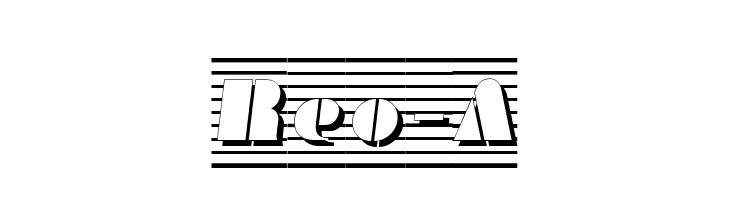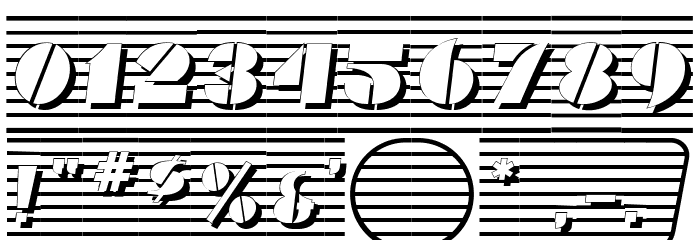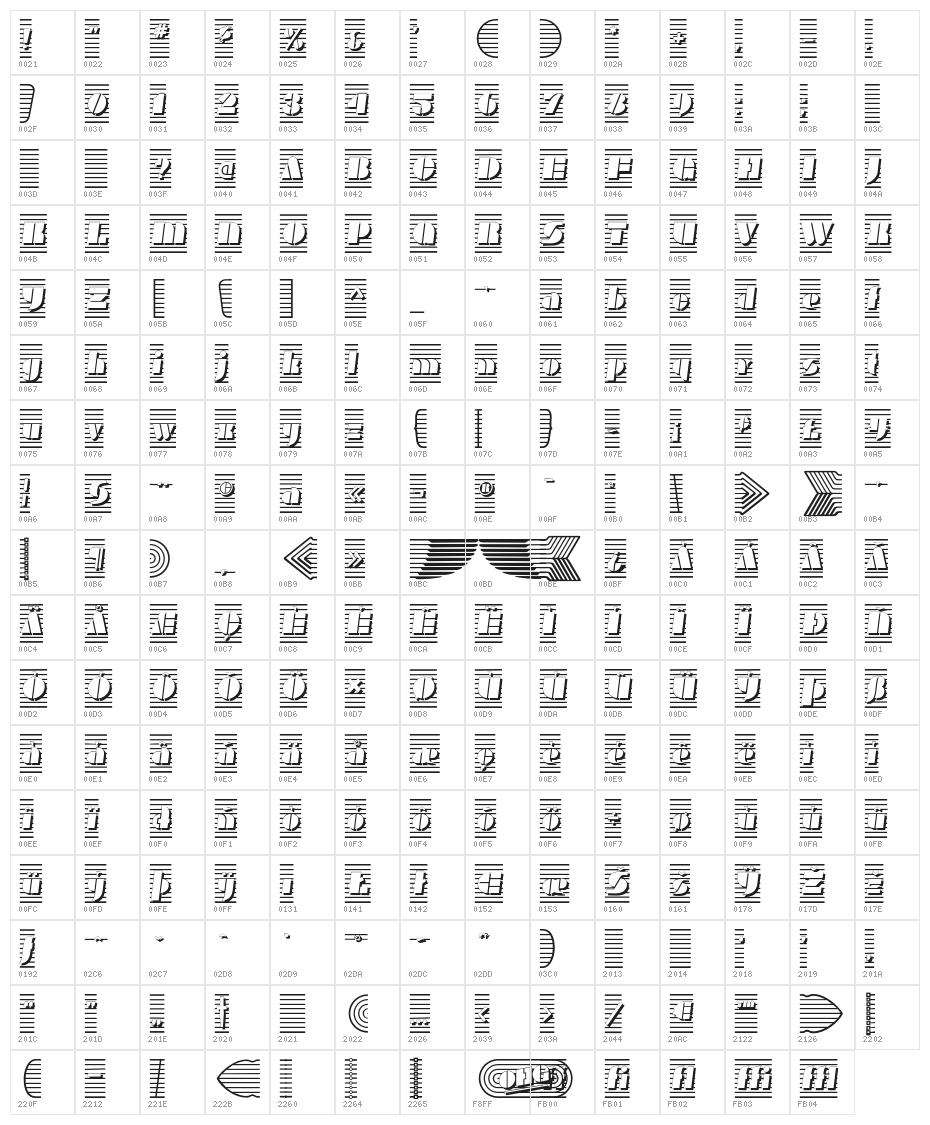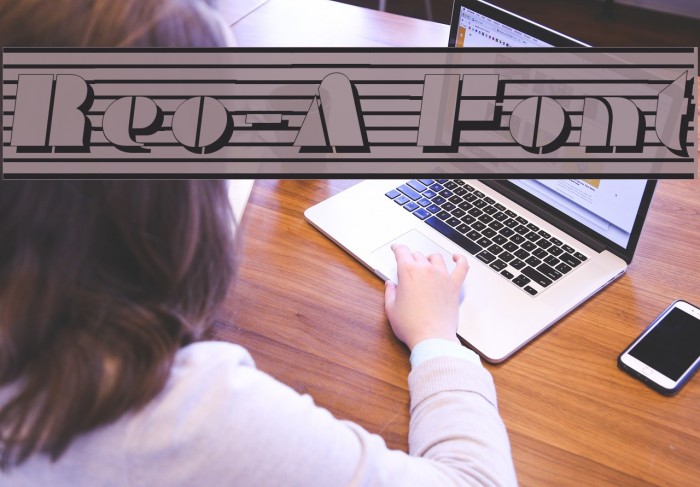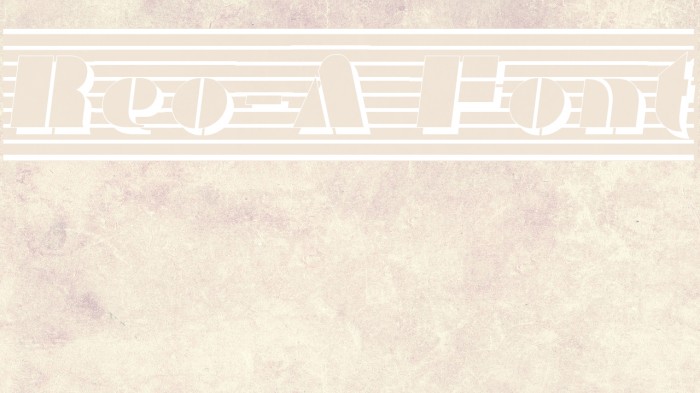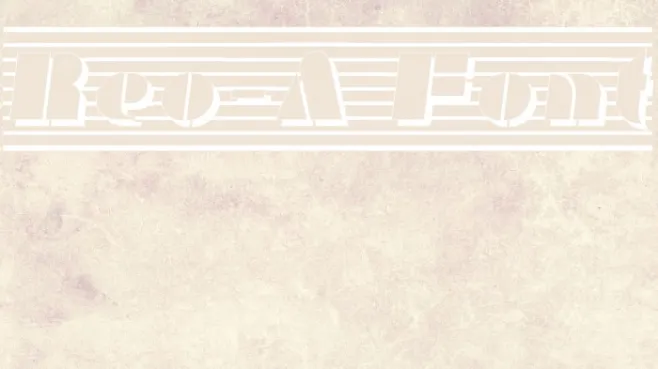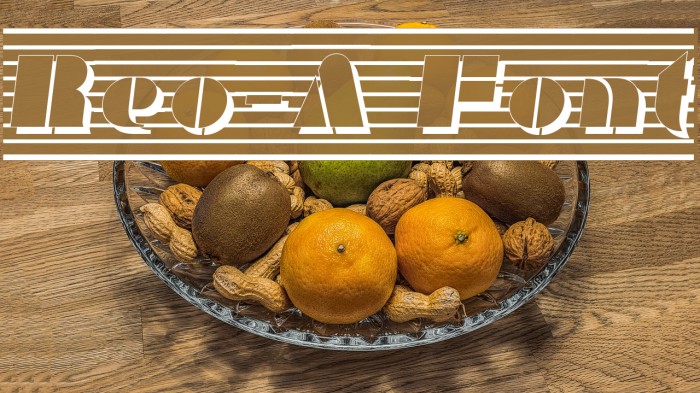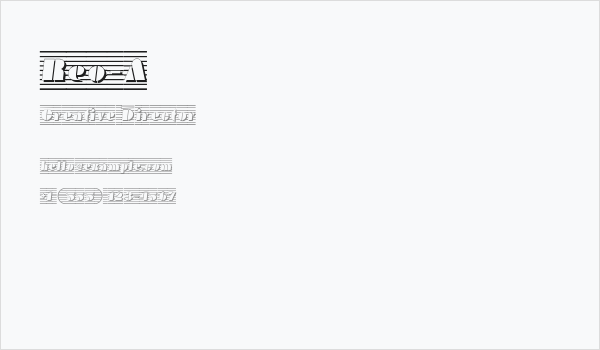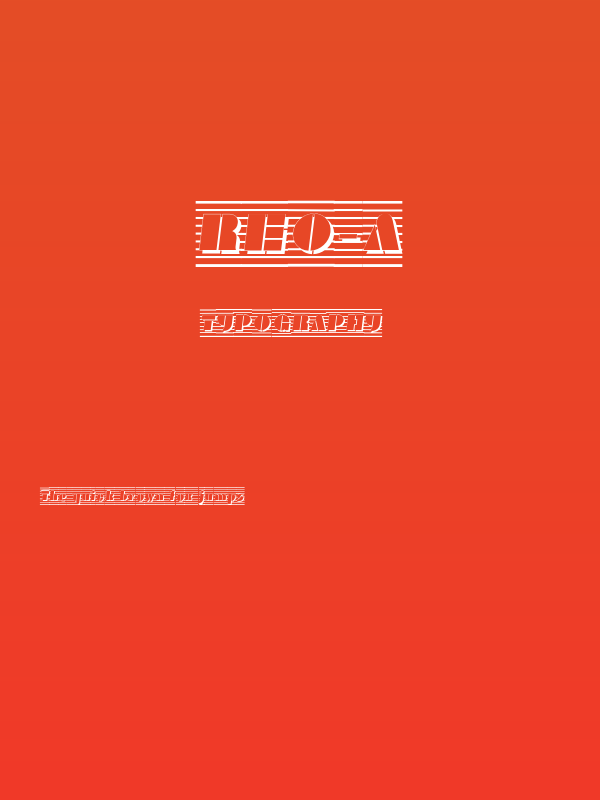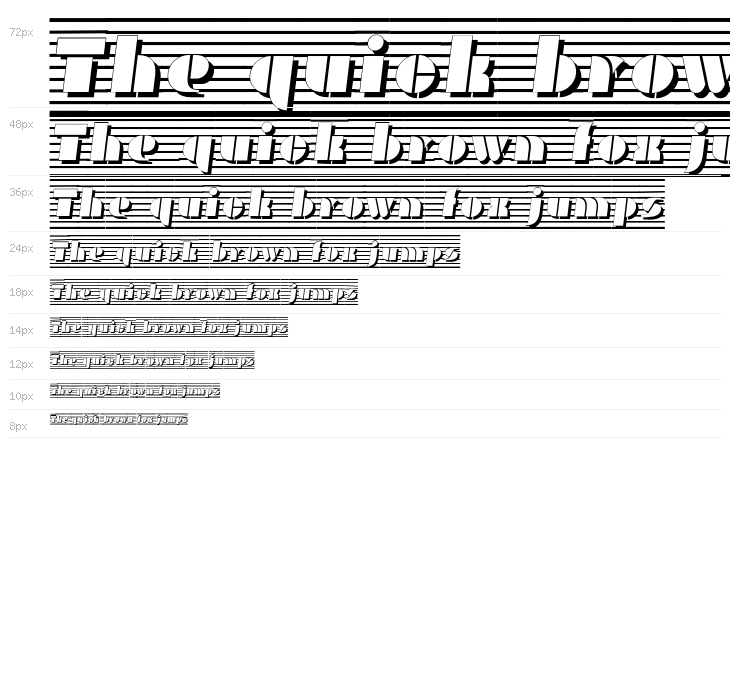
Reo-A Font
Reo-A Description
This font features a bold and striking design with a three-dimensional effect, achieved through the use of shadowing and layered strokes. The characters are uppercase and lowercase letters, numbers, and a selection of special characters. Each letter has a unique, artistic flair, with sharp angles and curves that create a sense of movement and depth. The font's style is reminiscent of vintage signage or retro posters, making it ideal for projects that require a touch of nostalgia or bold visual impact. The spacing between characters is normal, allowing for readability while maintaining its decorative appeal.
| Proposed Projects | Ideal for retro posters, vintage signage, branding, and artistic projects requiring a bold statement. |